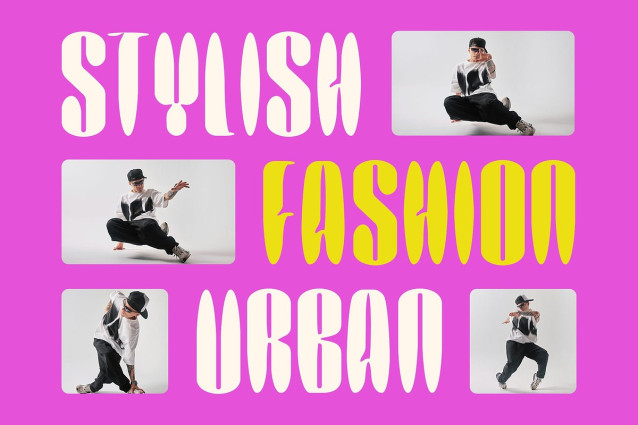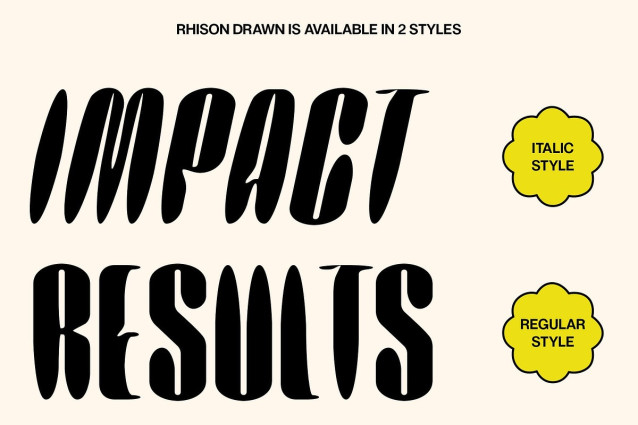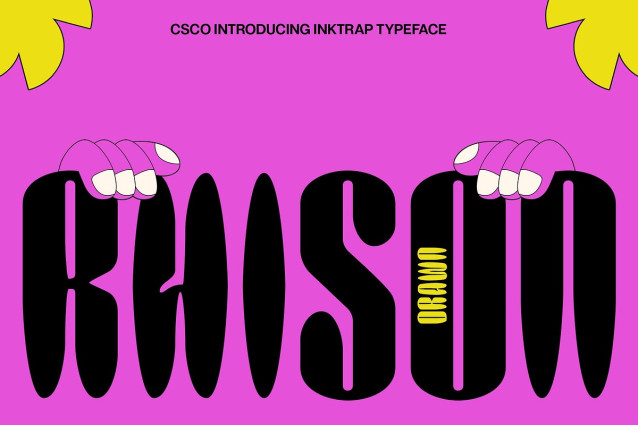
Rhison Drawn Font
Rhison Drawn Font is a bold sans serif font with a distinctly condensed form, evoking a classic typographic style with a strong visual presence. Its compact proportions create a solid and authoritative look, ideal for headlines, titles, and impactful design layouts where space is limited but visual power is essential.
Inktrap Details for Sharp Clarity Designed with refined inktrap details, Rhison Drawn ensures crisp legibility across various sizes and mediums. These subtle cut-ins enhance the clarity of each letterform, particularly in print or small-scale designs, while adding a touch of typographic sophistication and depth.
Drawn Effect for Organic Texture Overlaying its structured core is a hand-drawn texture that adds a raw, expressive, and organic character. This drawn effect introduces an imperfect charm that contrasts beautifully with the font’s rigid geometry, resulting in a design that feels both crafted and compelling.
Perfect for Creative and Editorial Projects Rhison Drawn bridges vintage inspiration with a modern sensibility, making it a versatile choice for a range of creative uses. From editorial posters and expressive branding to packaging and artistic visuals, this font delivers both structure and soul—perfect for designers seeking boldness with a human touch.